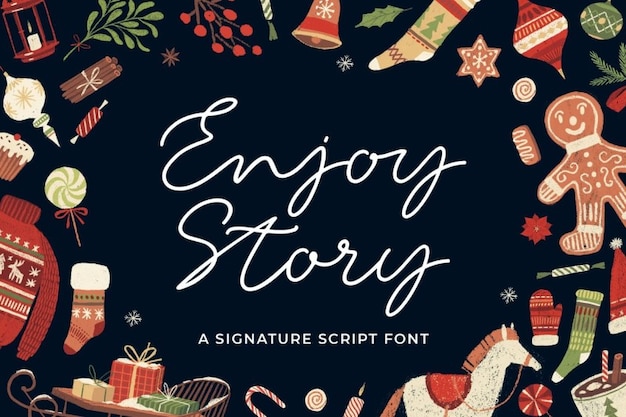
Enjoy Story Font
Enjoy Story is like a handwritten love letter from Santa himself! This cute and whimsical font adds a touch of Christmas magic to your projects. With its playful, hand-lettered style, it's perfect for holiday cards, gift tags, or festive party invitations. Each letter dances with holiday cheer, like a whimsical elf leaving gifts under the tree. Enjoy Story captures the essence of a cozy Christmas morning, filled with laughter and joy. Whether you're designing holiday greetings or crafting Christmas-themed decorations, this font will make your text as charming as a cup of hot cocoa by the fireplace. It's the perfect choice for adding a touch of handwritten warmth to your festive designs.